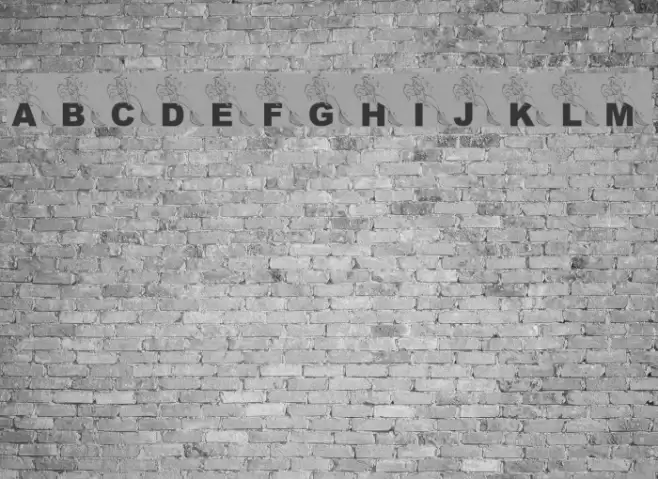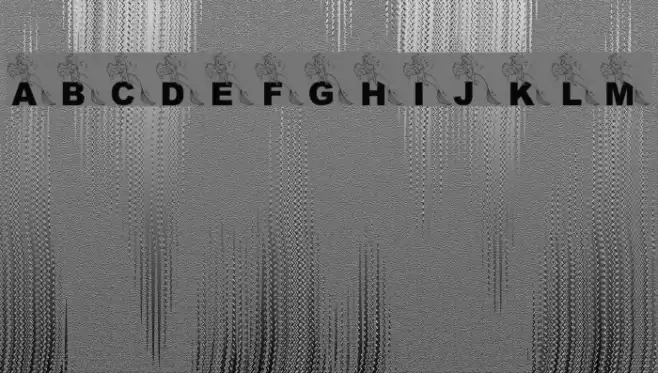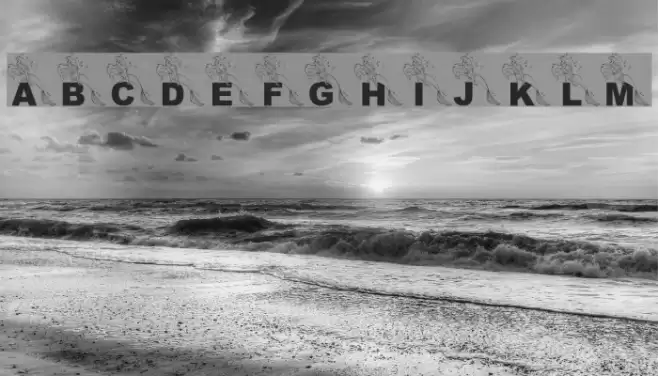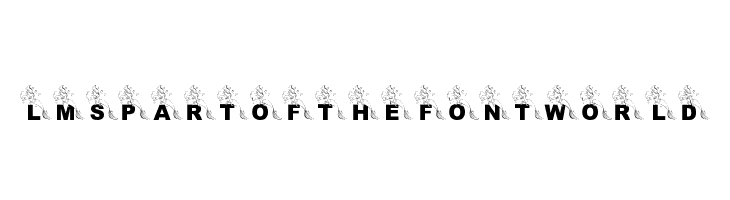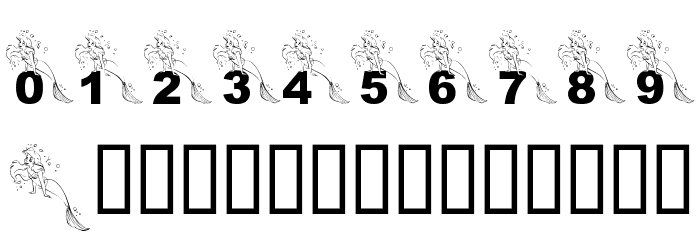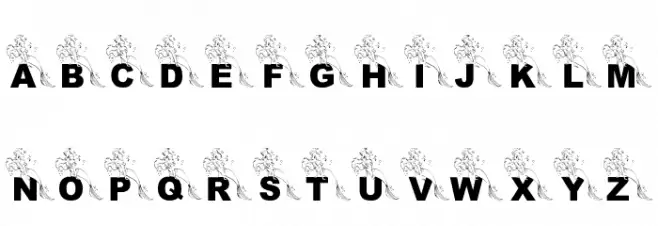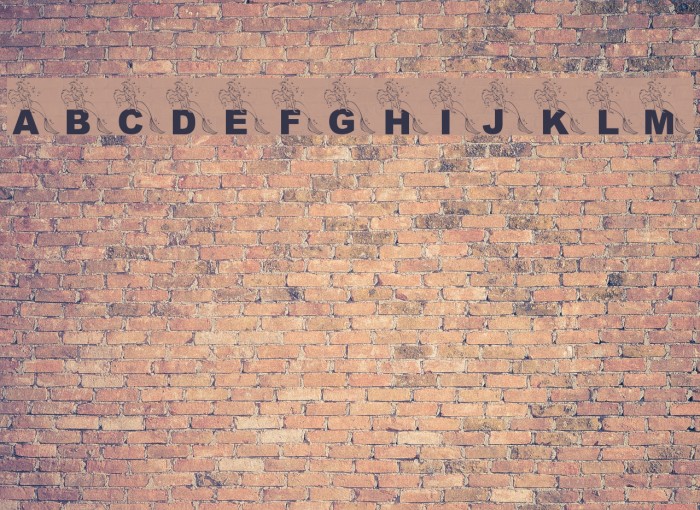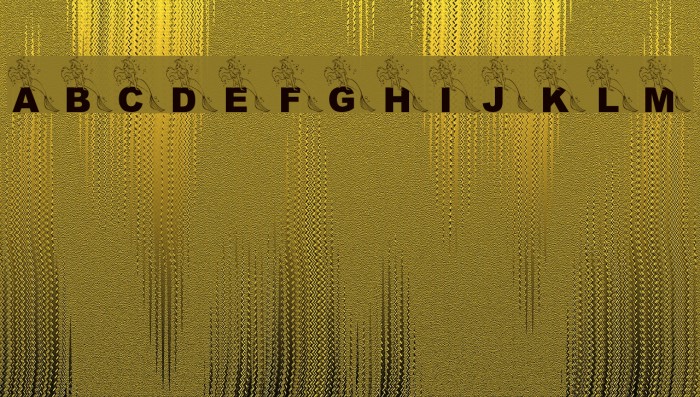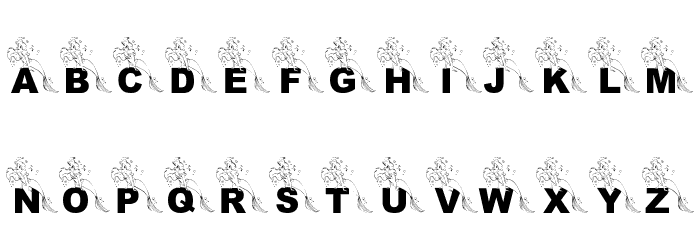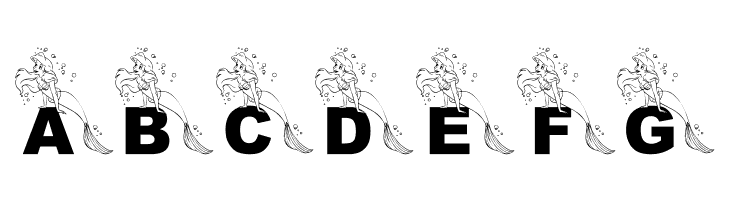
LMS Part Of The Font World Font
LMS Part Of The Font World Description
This decorative font features bold, uppercase and lowercase letters adorned with intricate floral designs. Each character is embellished with a detailed, swirling floral motif that extends from the top left, creating a unique and artistic appearance. The numbers and special characters are similarly styled, maintaining the cohesive decorative theme. The font's boldness and elaborate design make it stand out, suitable for projects that require a touch of elegance and creativity.
A decorative font with bold letters and intricate floral embellishments from Uncategorized fonts.
- Proposed Projects: Ideal for wedding invitations, greeting cards, branding for luxury products, and artistic posters.
- Use Case: Logos, Headlines, Artistic Projects